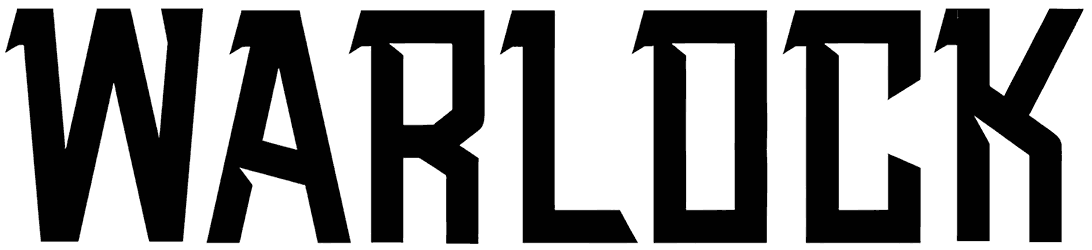
Warlock Font
Warlock is a mechanical font that fits the bill if you are looking for a clean-cut font to appear neat and sharp look to your target audience and help you achieve your professional goals. Your presentation will have a touch of stylish mood with this fancy font.
This esports font is suitable for anything from advertising and printed T-shirts to logotypes with its sharp edges. By taking a chance, you can put an end to time-consuming routines and try something new.